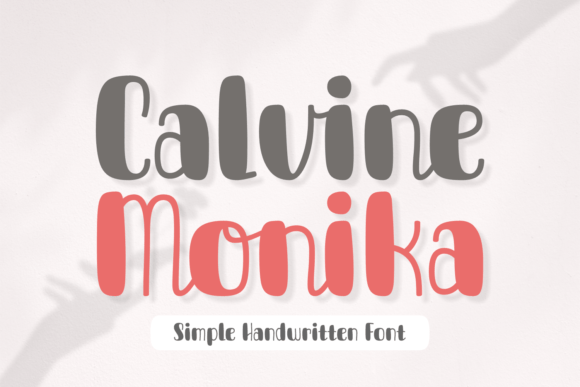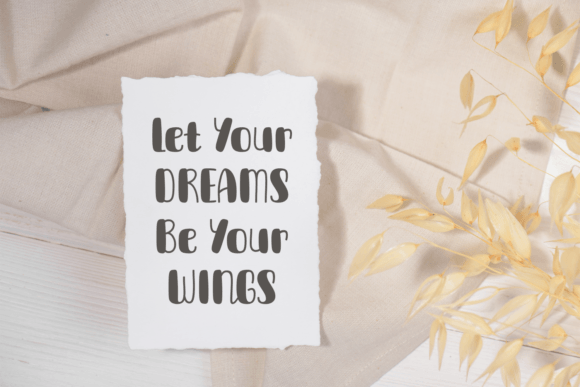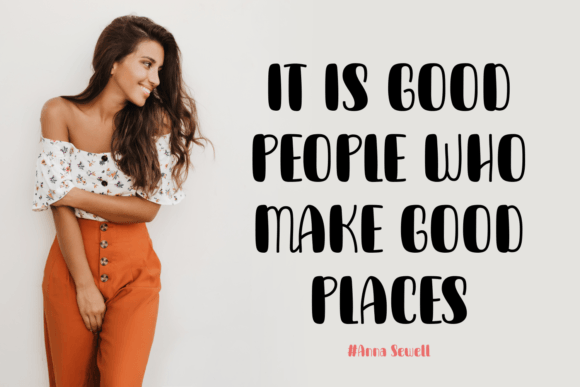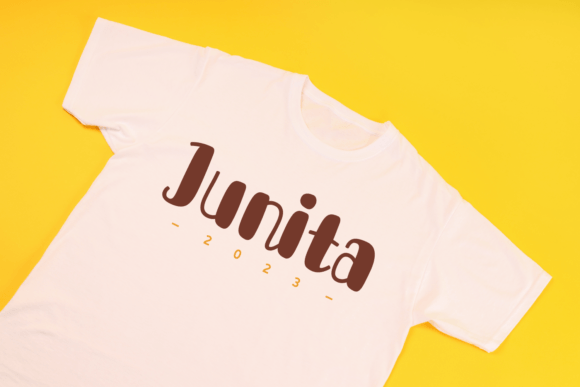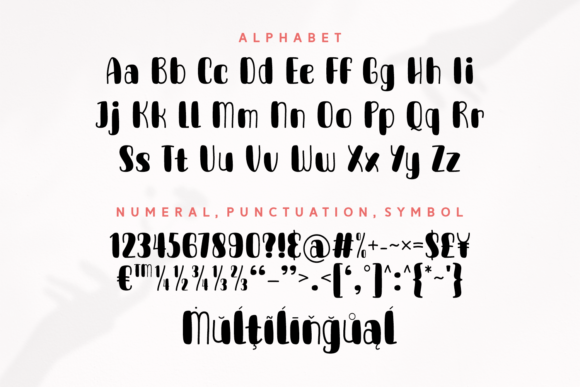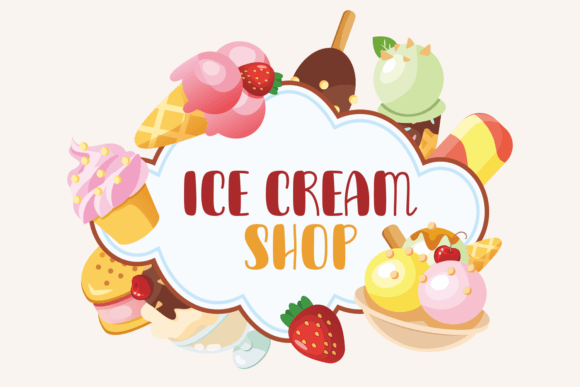
Calvine Monika Font
A Beautiful and Unique Handwritten Font
The Calvine Monika Font is a beautiful and unique handwritten typeface that combines thick and thin lines to create a stylish and balanced aesthetic. Its elegant strokes and distinctive design make it perfect for a wide variety of creative projects. Whether you’re designing greeting cards, logos, or posters, the Calvine Monika Font adds an artistic and memorable touch to your designs.
Ideal for Creative Projects
The Calvine Monika Font is ideal for all kinds of creative projects. Whether you’re working on custom invitations, business cards, or marketing materials, this font’s unique blend of bold and delicate lines ensures that your design stands out with a modern, elegant feel. Its versatility allows it to fit perfectly with both digital and print media, making it a great addition to any design library.
Great for Logos and Branding
For logos and branding, the Calvine Monika Font offers a stylish and refined look. Its modern handwritten design makes it an ideal choice for businesses looking to convey a personalized yet professional identity. Whether you’re designing a luxury brand, creative agency, or personal brand, this font ensures your logo feels unique and memorable.
The Calvine Monika Font is a great option for invitations and greeting cards. Whether you’re designing for a wedding, birthday, or holiday event, this font adds an elegant and personalized touch to your stationery. Its flowing strokes and stylish lines create an inviting atmosphere, making your invitations and cards feel extra special and unique.
Ideal for Posters and Social Media Graphics
For posters and social media graphics, the Calvine Monika Font delivers a stylish, eye-catching design. Whether you’re creating event posters, motivational quotes, or promotional graphics, this font’s unique appearance ensures your content stands out and draws attention. Its combination of thick and thin lines makes it perfect for bold statements that need to make a lasting impact.
Elegant, Legible, and Versatile
Despite its artistic and handwritten style, the Calvine Monika Font remains legible and easy to use. Its clean strokes ensure that your text is easy to read, even in smaller sizes or for longer passages. Whether you’re creating headlines, captions, or body text, this font offers the perfect combination of style and clarity, making it suitable for a wide range of creative applications.
Add Elegance and Style to Your Designs with Calvine Monika Font
If you’re looking for a beautiful, unique, and stylish handwritten font to enhance your designs, the Calvine Monika Font is the perfect choice. Whether you’re working on logos, invitations, greeting cards, or branding materials, this font brings a personalized and elegant touch to your work. Let the Calvine Monika Font elevate your designs and create memorable, artistic projects that stand out.